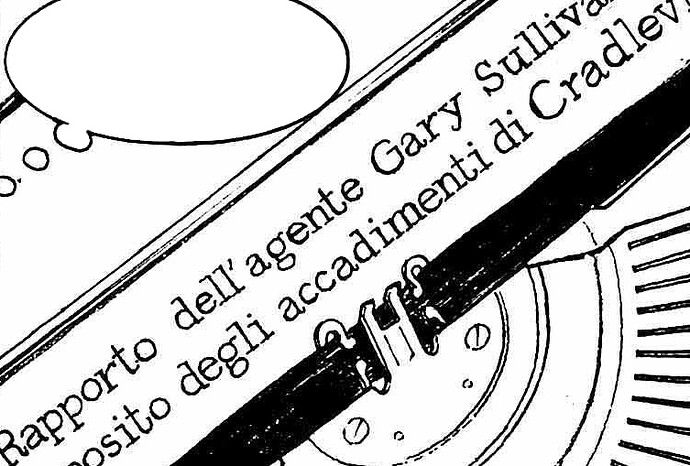
There are many typewriter fonts out there that resemble this: FF Trixie, FF Elementa, Harting, My Underwood, Olivetti Type 2, etc. But they are monospaced fonts. The type here is proportionally spaced (but this style of typewriter did not type proportionally). And it seems to have been hand drawn, not set as type. Note that the three d’s are different. So are the l.c. a’s, g’s, l’s, and t’s.